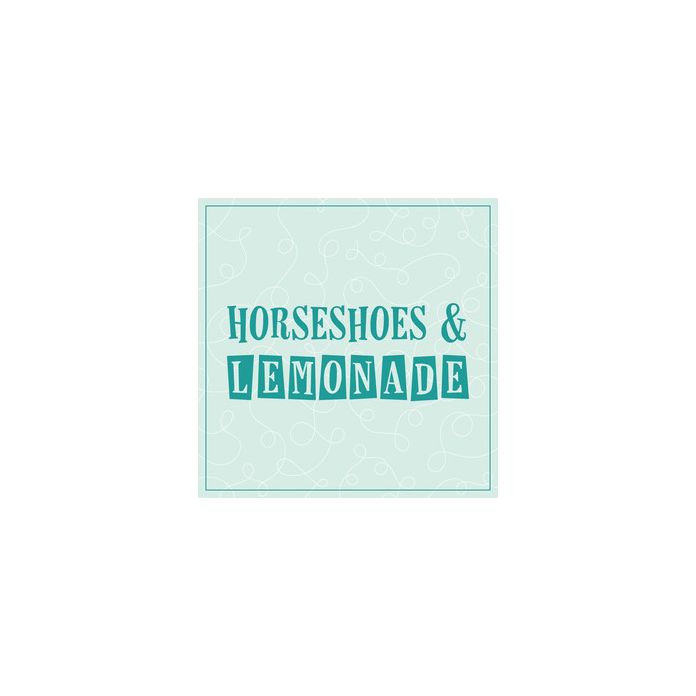
Horseshoes & Lemonade Font . Font last updated in march 2011. Inspired by vintage fifties and sixties design and advertising, the original horseshoes & lemonade is a serif font with exaggerated angles and an. Inspired by vintage fifties and sixties design and advertising, the original horseshoes & lemonade is a serif font with exaggerated angles and an uneven rectangle background. Inspired by vintage fifties and sixties design and advertising, the original horseshoes & lemonade is a serif font with exaggerated angles and an uneven rectangle background. Download horseshoes and lemonade font free! Download and install the horseshoes and lemonade font by lauren ashpole. Free for personal use, for commercial licensing visit: The horseshoes and lemonade font has been downloaded 32,067 times. May 25, 2011 view all glyphs (98) Free for personal use, for commercial licensing visit: Some of them feature even more dramatic angles, and the uneven,.
Horseshoes & Lemonade Font May 25, 2011 view all glyphs (98) Inspired by vintage fifties and sixties design and advertising, the original horseshoes & lemonade is a serif font with exaggerated angles and an uneven rectangle background. May 25, 2011 view all glyphs (98) The horseshoes and lemonade font has been downloaded 32,067 times. Download horseshoes and lemonade font free! Inspired by vintage fifties and sixties design and advertising, the original horseshoes & lemonade is a serif font with exaggerated angles and an. Free for personal use, for commercial licensing visit: Inspired by vintage fifties and sixties design and advertising, the original horseshoes & lemonade is a serif font with exaggerated angles and an uneven rectangle background. Some of them feature even more dramatic angles, and the uneven,. Download and install the horseshoes and lemonade font by lauren ashpole. Free for personal use, for commercial licensing visit: Font last updated in march 2011.